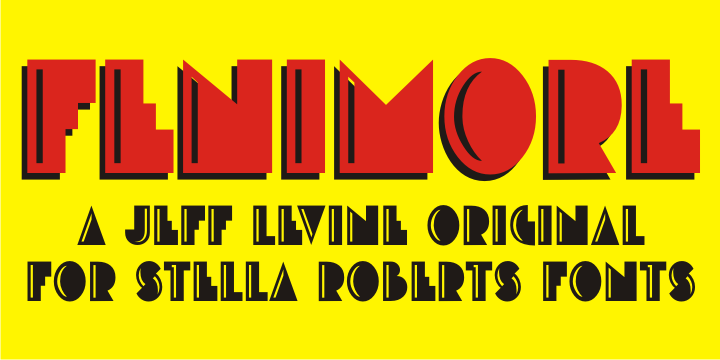
Fenimore SRF is a art deco font published by Stella Roberts Fonts.
Fenimore SRF is a variation of Jeff Levine’s Theater District JNL with added highlights, created especially by Jeff for Stella Roberts fonts.
This Art Deco-influenced typeface typifies the streamlined style of 1930s era-influenced modernism and streamline.